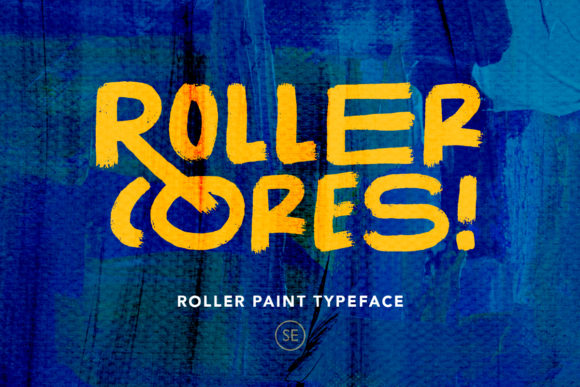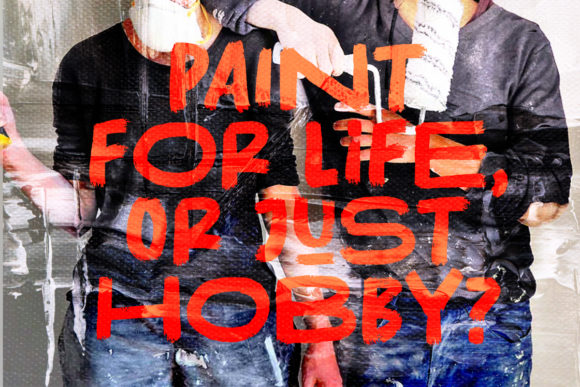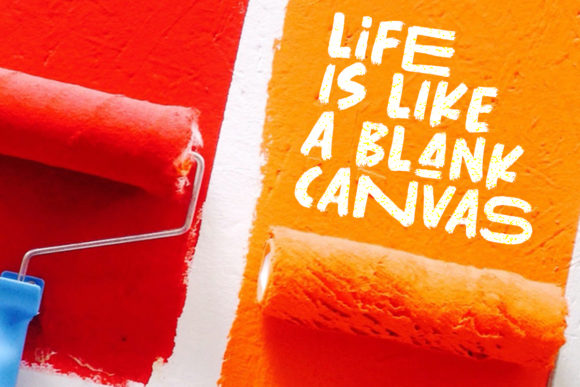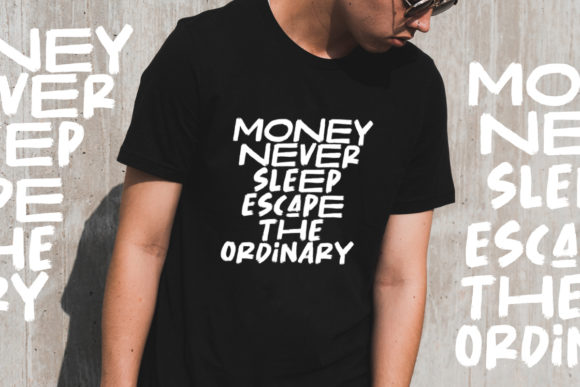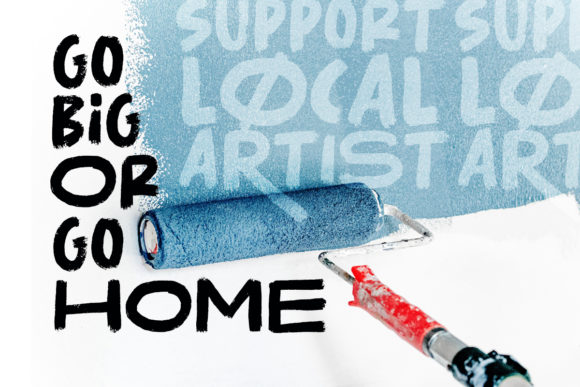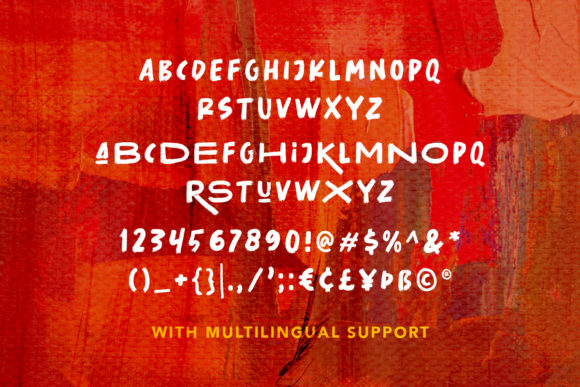
HomeScript FontsRoller Cores Font Script Fonts Roller Cores Font FacebookXPinterestWhatsApp 1 of 6 Roller Cores Font Poster 2... Roller Cores Font Poster 3... Roller Cores Font Poster 4... Roller Cores Font Poster 5... Roller Cores Font Poster 6... About Roller Cores Font Roller Cores is a roller paint inspired script font. This font is suitable for any project you can think of. DOWNLOAD NOW People also explored Taiger Font Goldburg Workaholic Font Delighty Font The Dayana Story Font Anico Tayo Font Hadrey Font Snazzy Small Font Morningdale Font 312 0 TagsRoller Cores Font Previous articleBrushbress FontNext articleBrenson Charlotte Font LEAVE A REPLY Cancel reply Comment: Please enter your comment! Name:* Please enter your name here Email:* You have entered an incorrect email address! Please enter your email address here Website: Save my name, email, and website in this browser for the next time I comment. Personal Use Free Bollado Personal Use Free Read more about this font Love Ya Personal Use Free Read more about this font England Personal Use Free Read more about this font Unispace Personal Use Free Read more about this font BLOG Fonts That Capture the Spirit of New York City New York City is more than just a place—it’s an experience, a rhythm, a visual language... Using Fonts in Digital Marketing: Tips to Strengthen Your Brand Identity Free Fonts Risk: Why Free Fonts Can Be Dangerous for Designers Best Fonts for T-Shirt Design – Top 2025 Picks